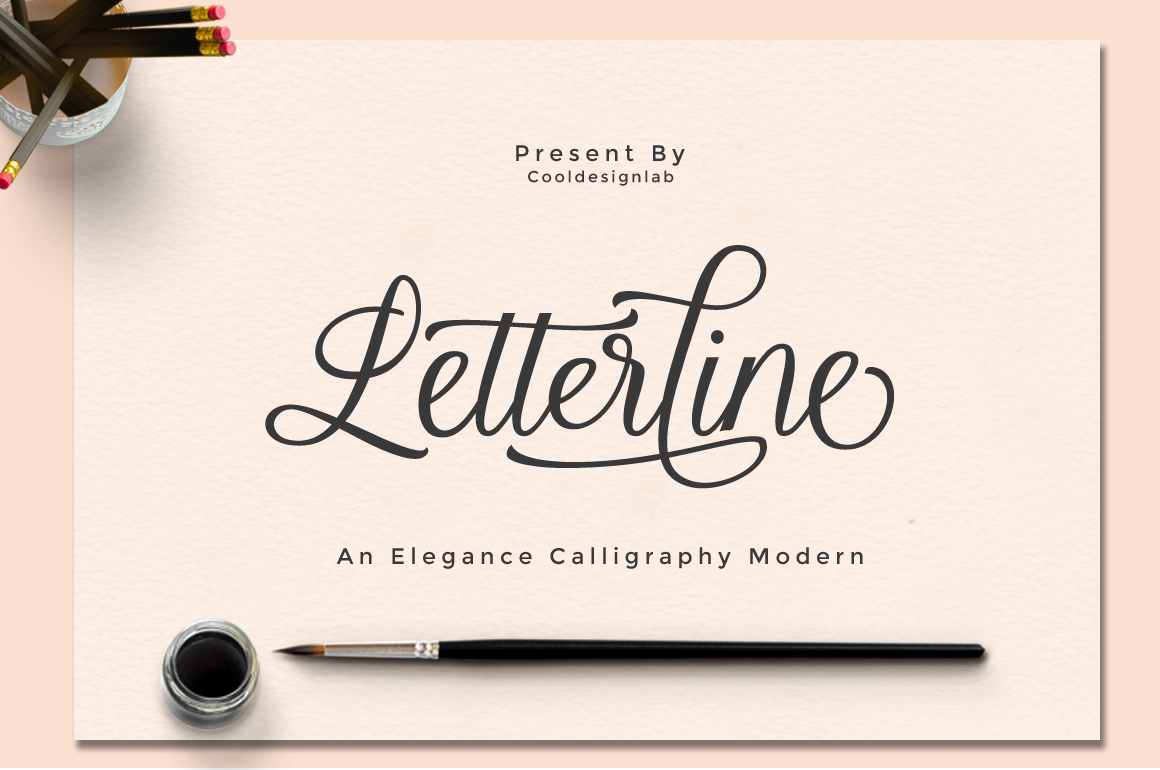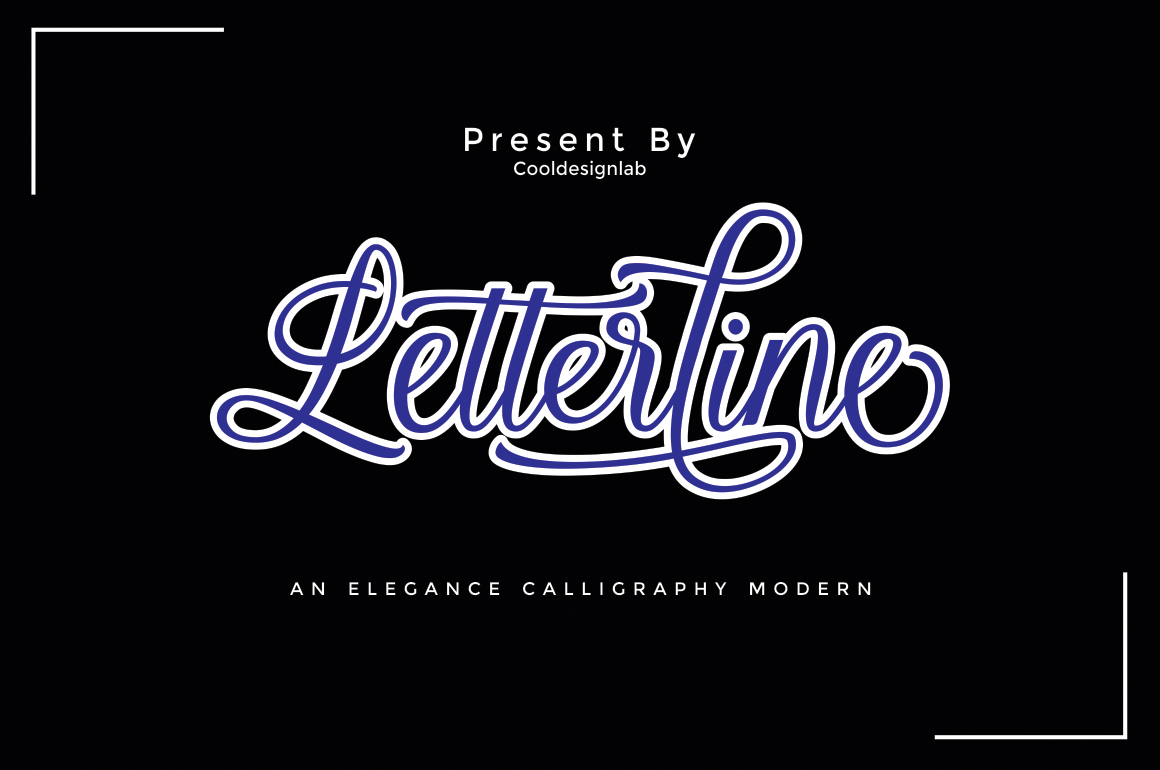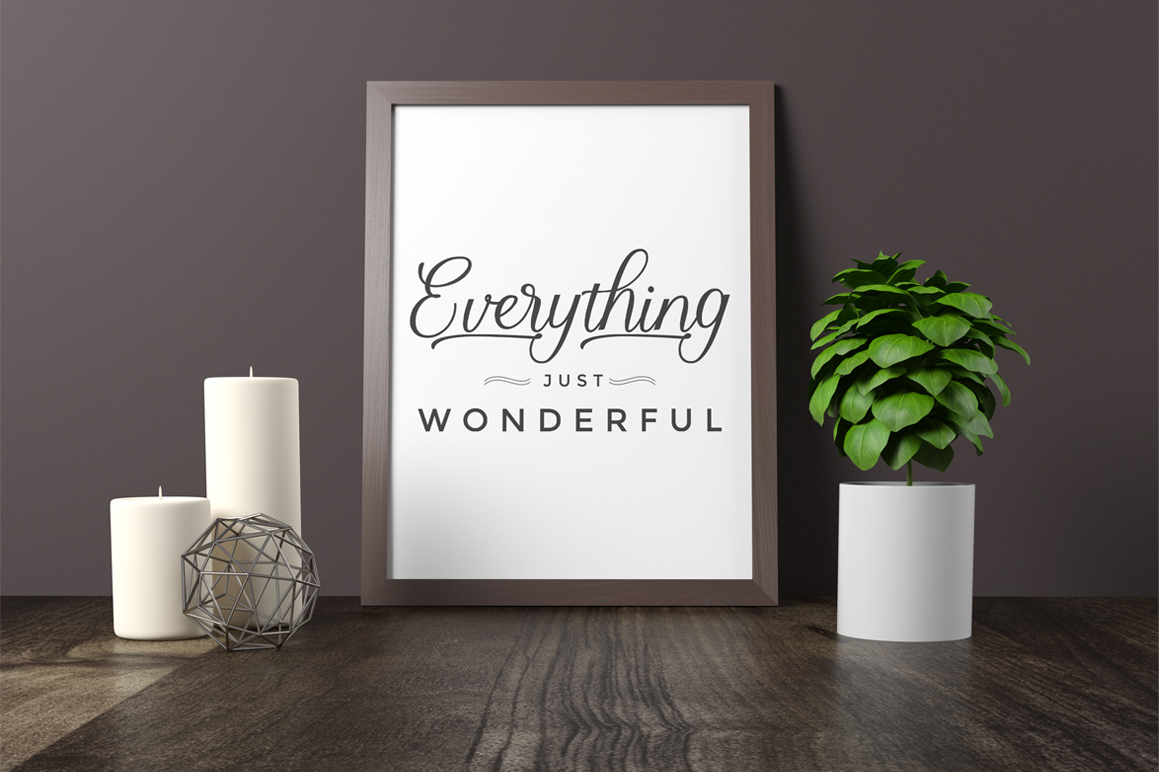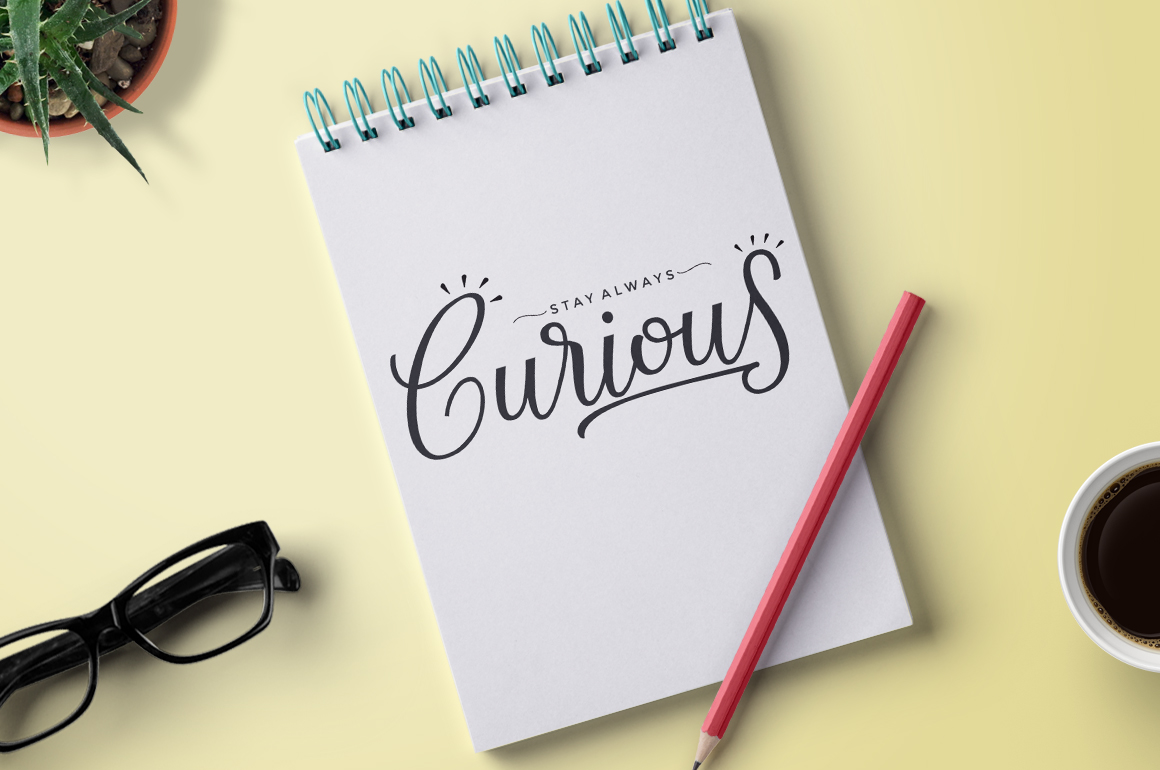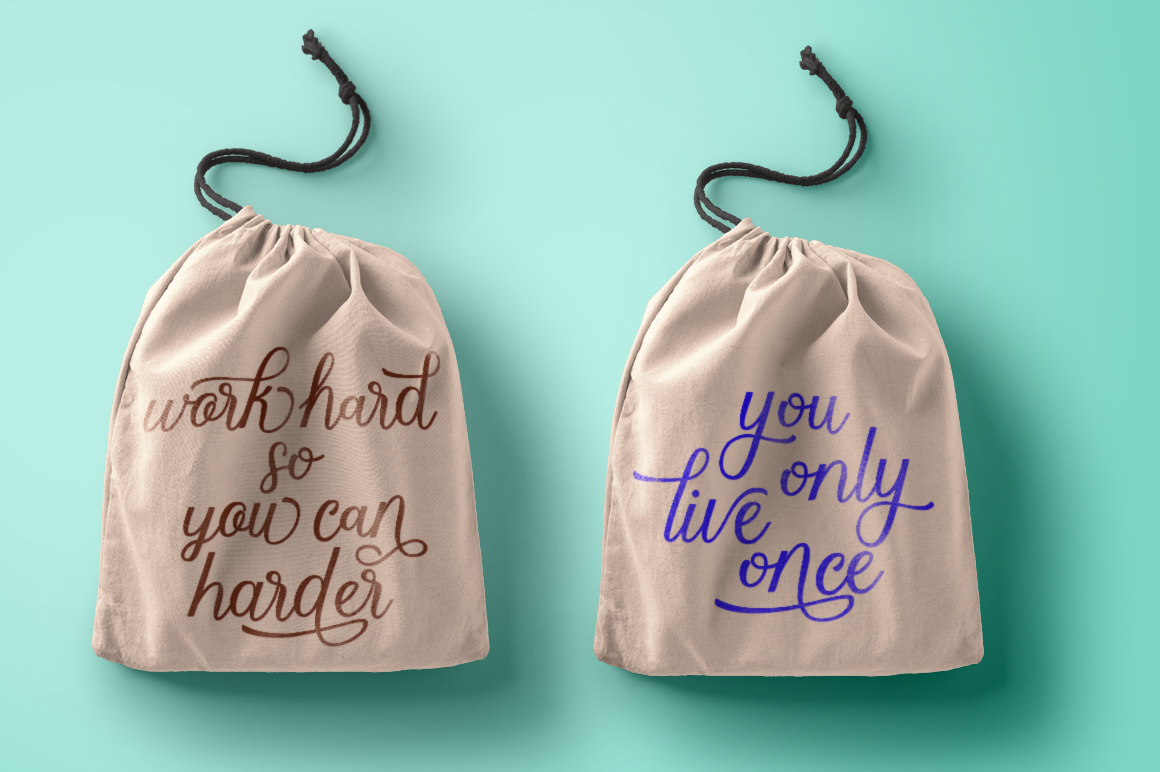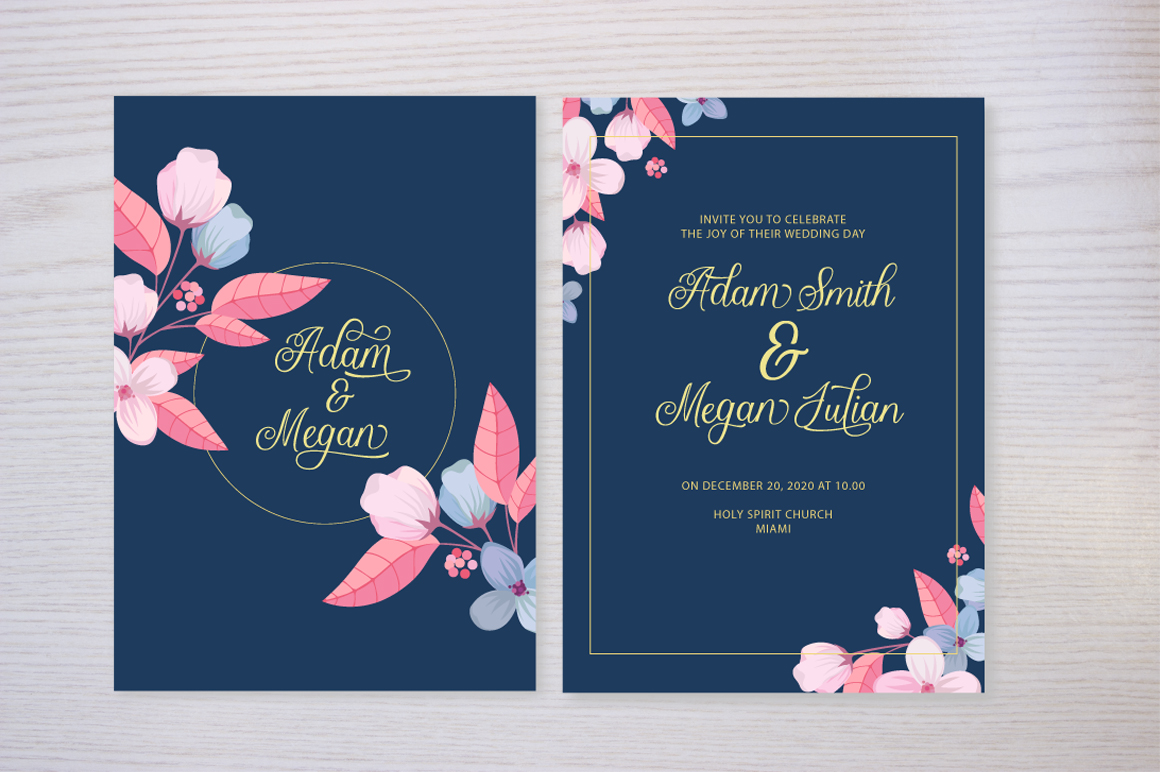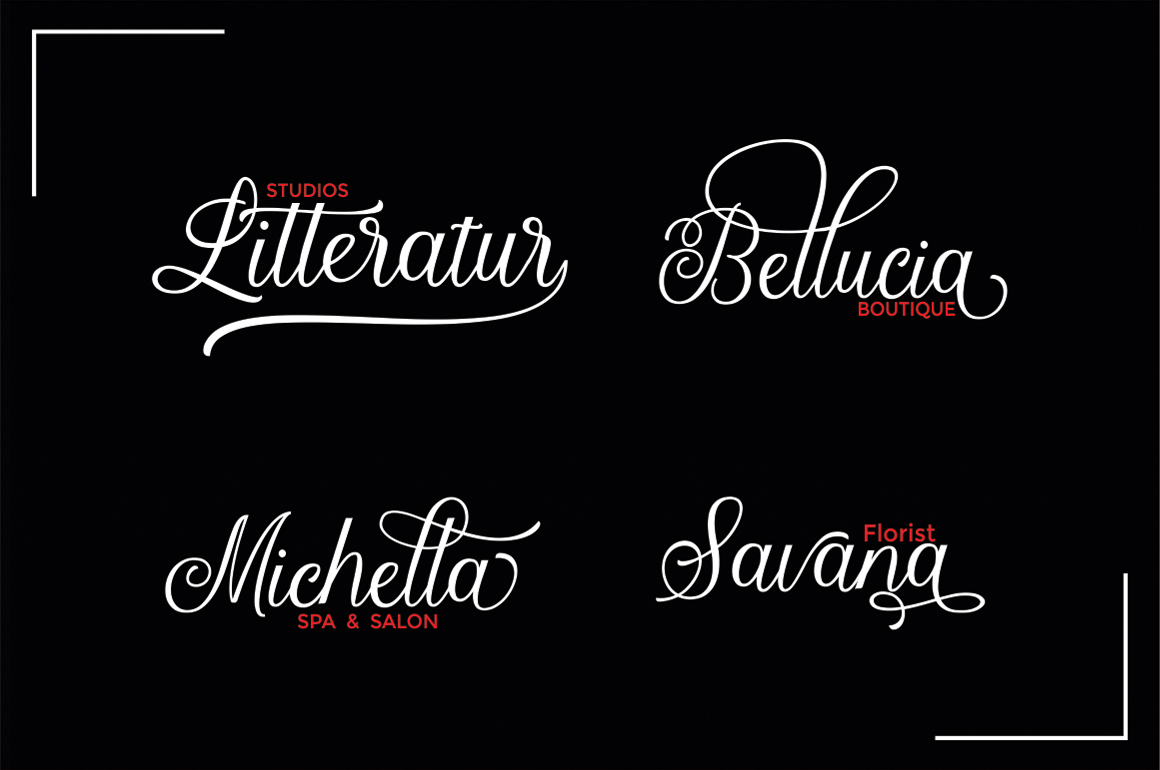
Letterline Font
About Letterline Font
This glamorous calligraphy font is a heartfelt creation, crafted over a long stretch of time in order to have an impeccable feel. This elegant script font comes with beautiful alternative characters, and has a very clean and easy to read appeal.